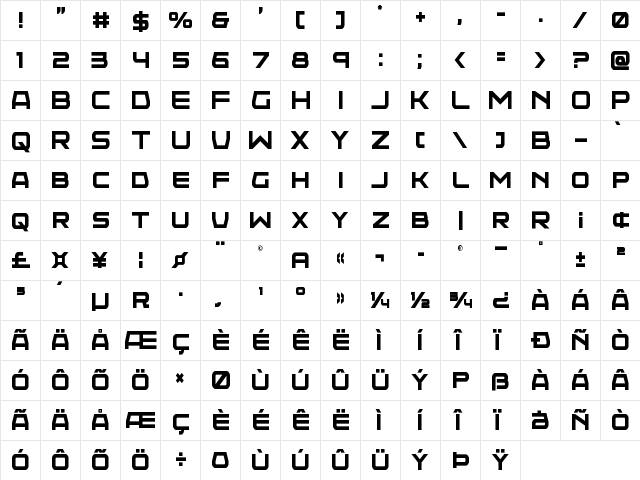
Neutron Dance Condensed Regular
Design Context for Neutron Dance Condensed Typeface
Neutron Dance Condensed is a composed and adaptable typeface that performs quietly and consistently across a wide range of design contexts. The condensed width makes it efficient for tight spaces without sacrificing legibility.